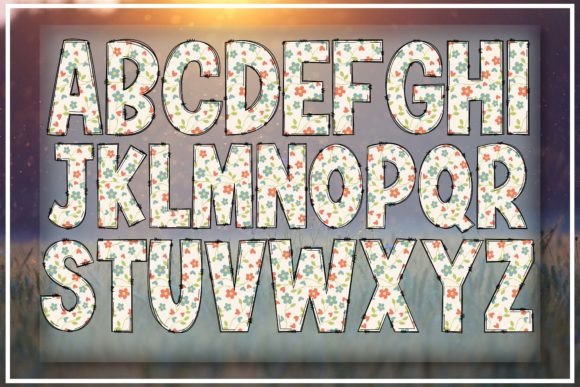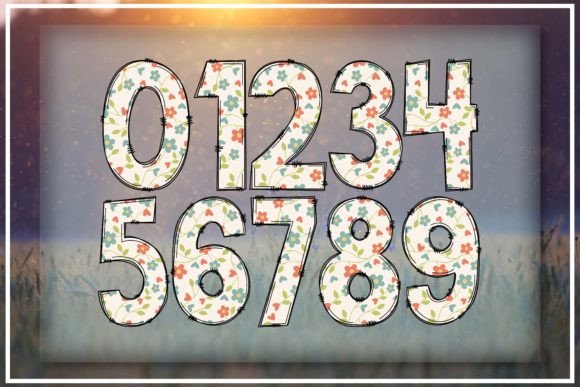
Introducing Fresh Floral Font: Elevate Your Designs with Vibrant Sans-Serif Lettering
Are you looking for a font that can add a pop of color and freshness to your designs? Look no further than the Fresh Floral Font! This stunning full-color font features heavy sans-serif lettering in soft pastel hues, adorned with delicate flowers, making it perfect for designers and crafters seeking to create eye-catching and lively designs.
What Makes Fresh Floral Font Special?
Fresh Floral Font is not your average font. Its unique combination of chunky lettering and colorful floral elements makes it a standout in any design. The font’s heavy sans-serif style gives it a bold and modern look, while the pastel colors add a touch of softness and elegance. The addition of flowers here and there adds a whimsical and playful feel, making it perfect for designs that require a bit of personality.
- Social Media Graphics: Add a pop of color and freshness to your social media posts and stories.
- Branding and Packaging: Create eye-catching logos, labels, and packaging that stands out.
- Invitations and Stationery: Add a touch of elegance and whimsy to your invitations, cards, and stationery.
- Digital Art and Illustrations: Use the font to add text and personality to your digital art and illustrations.
Fresh Floral Font is a versatile and eye-catching font that can elevate your designs and add a touch of freshness and personality. Its unique combination of heavy sans-serif lettering and colorful floral elements makes it perfect for designers and crafters seeking to create lively and engaging designs. With its compatibility with various apps and operating systems, you can easily incorporate Fresh Floral Font into your workflow and start creating stunning designs.